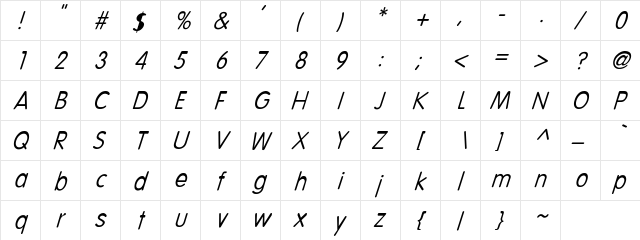
LaRouche Italic Regular
Design Context for LaRouche Italic Typeface
LaRouche Italic offers clean, dependable letterforms without strong stylistic allegiance, making it a practical choice for designers who need flexibility. The slanted form adds forward momentum and visual energy.
Pro Tip: Try LaRouche Italic for annotation and caption copy alongside an upright companion — the contrast in angle creates a dynamic but ordered typographic system.